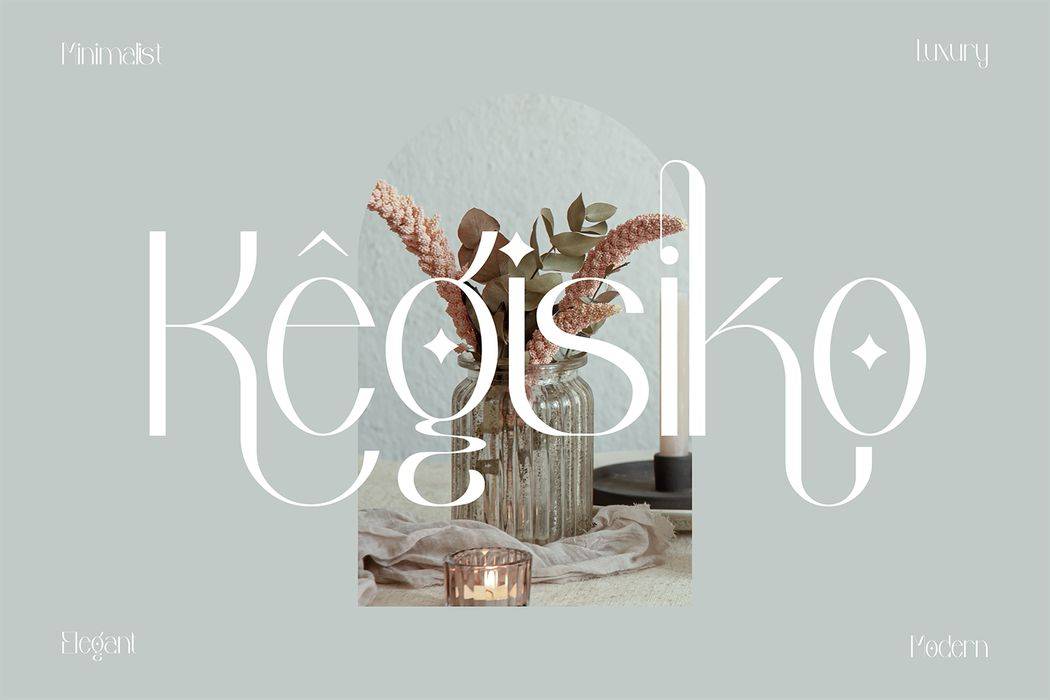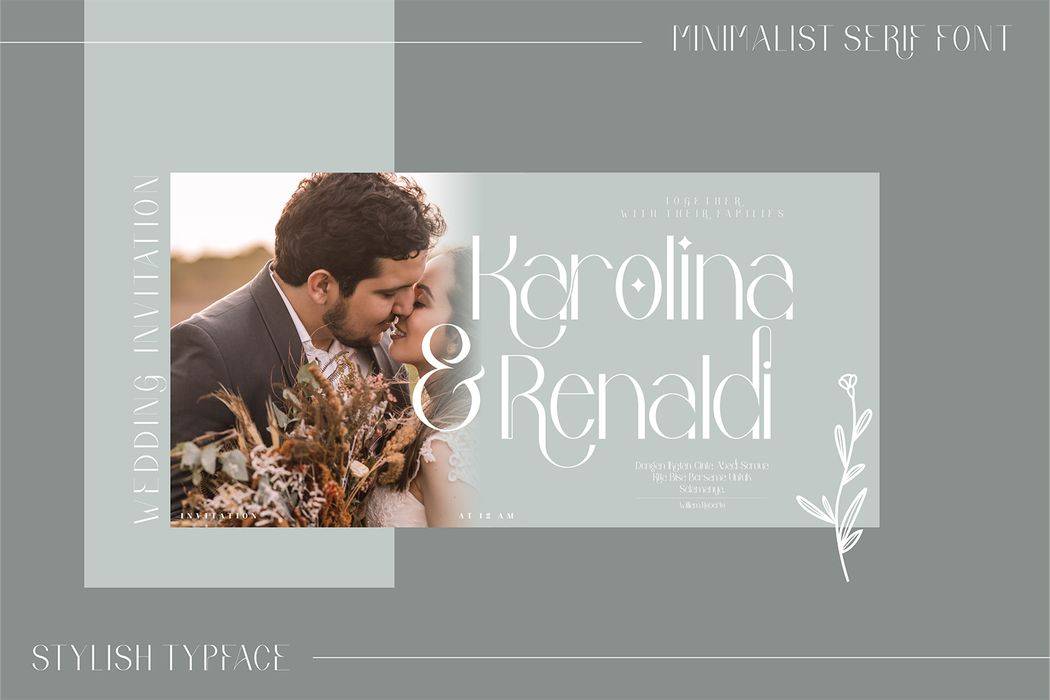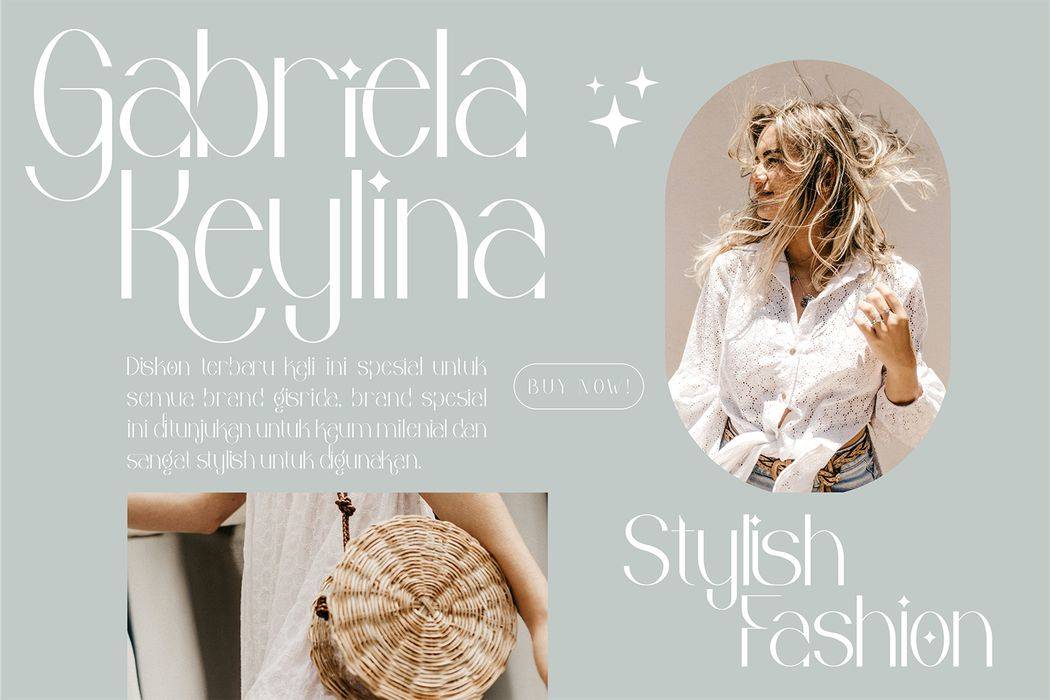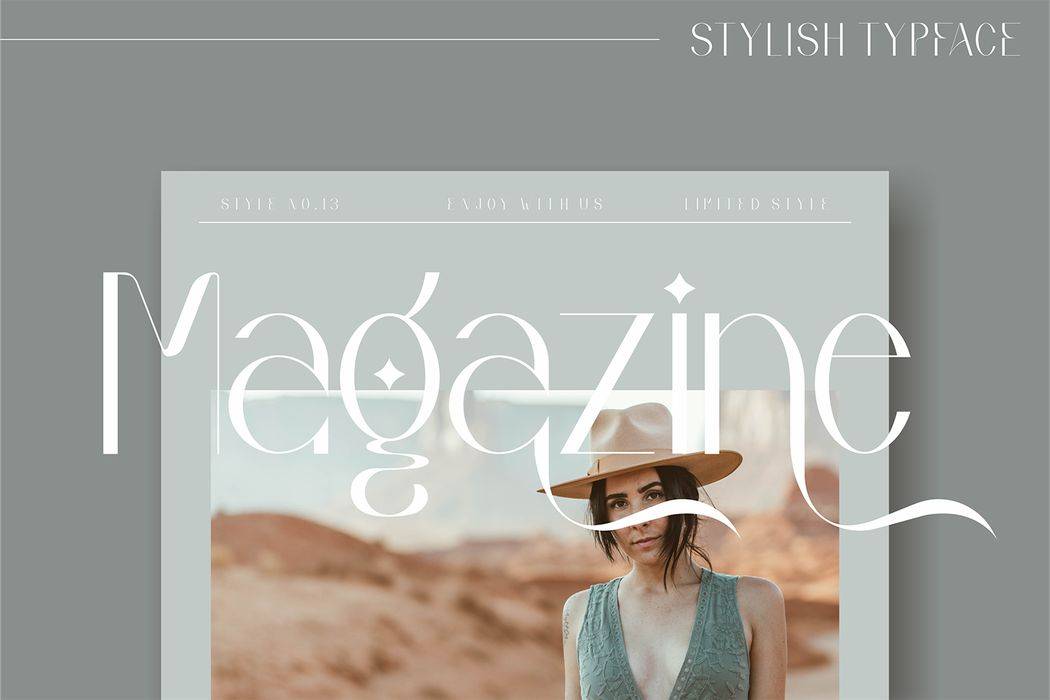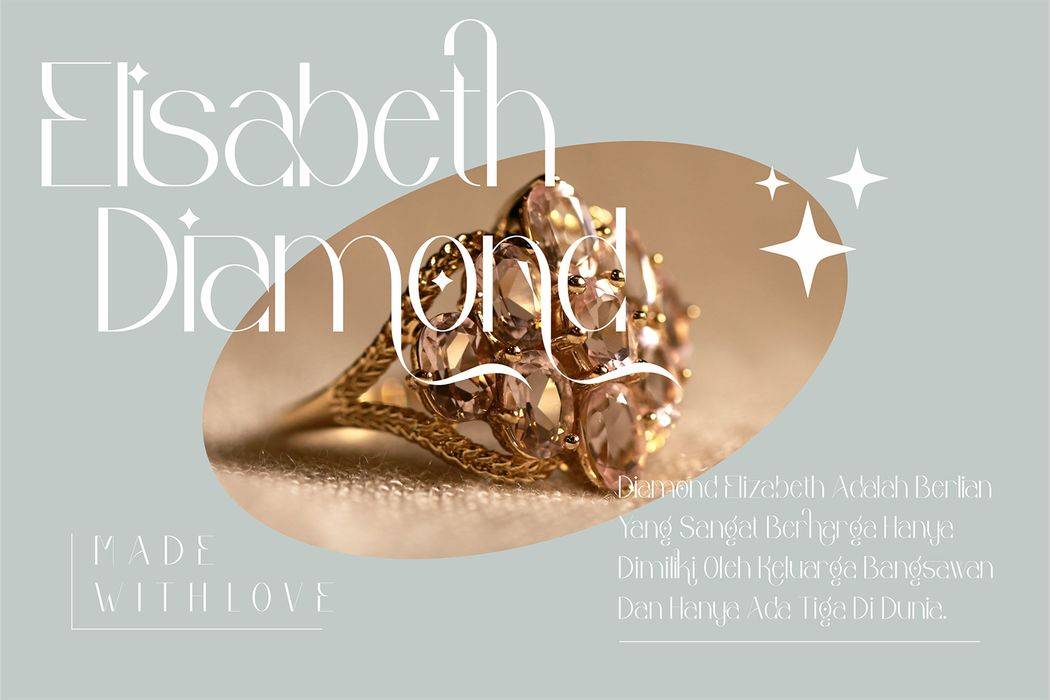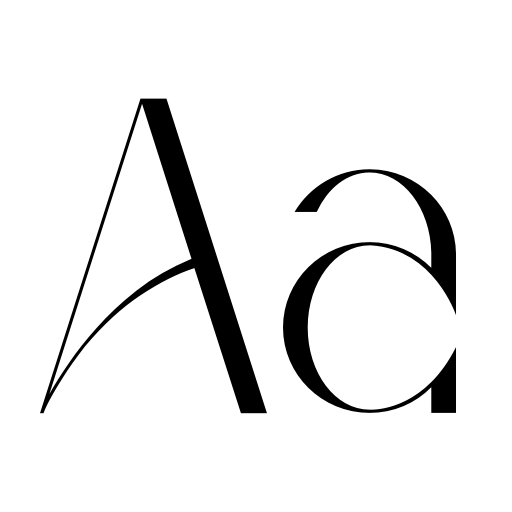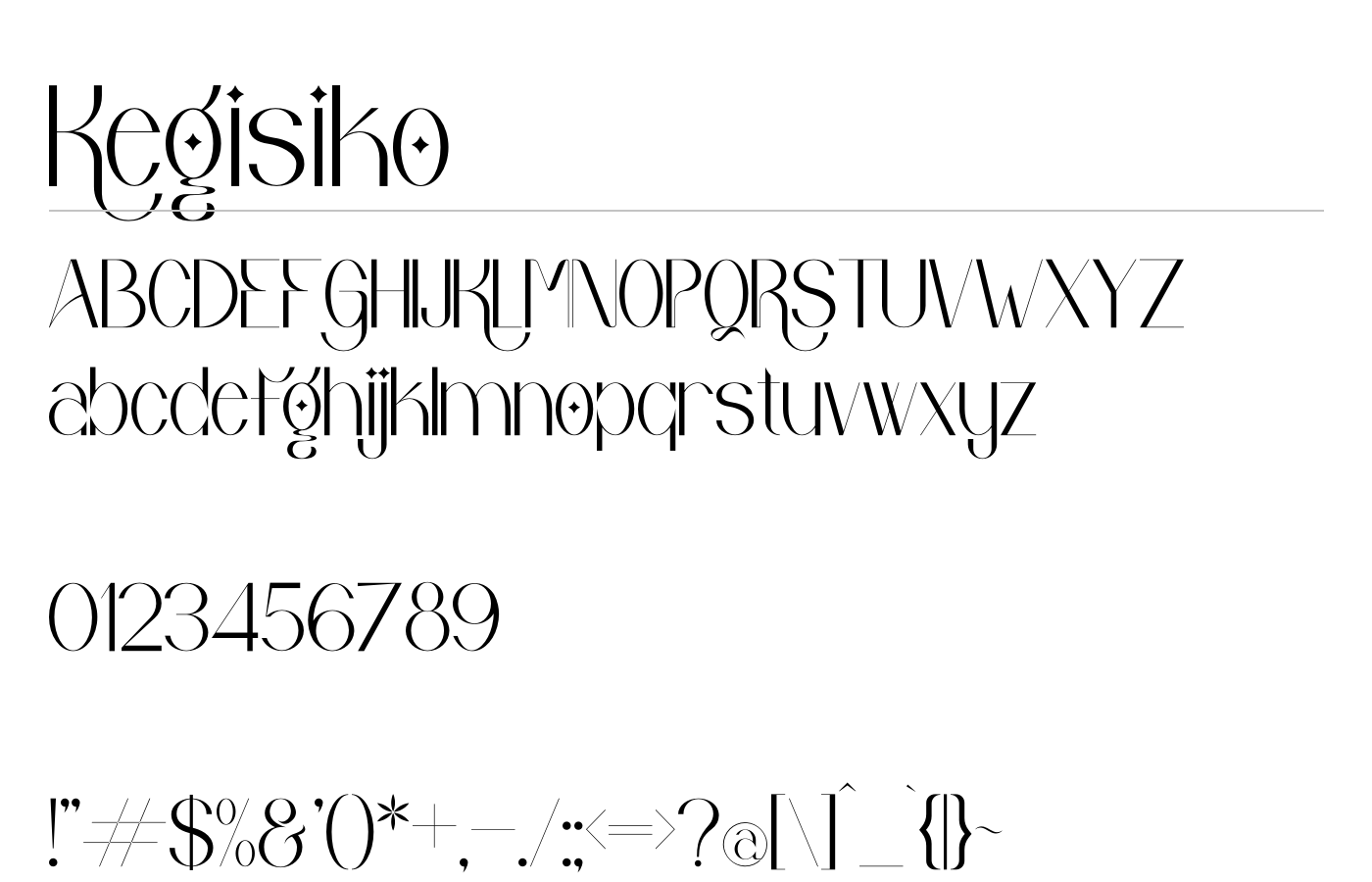
Kegisiko is an elegant serif font with a modern and artistic flair, featuring thin, high-contrast strokes and unique decorative elements like diamond-shaped dots. Its tall, narrow letterforms with curved and sharp terminals create a sophisticated, stylish look that suits luxury branding, fashion, and high-end editorial design. This font works best in headlines and logos where its distinctive style can shine and make a memorable impression.
Kegisiko Font